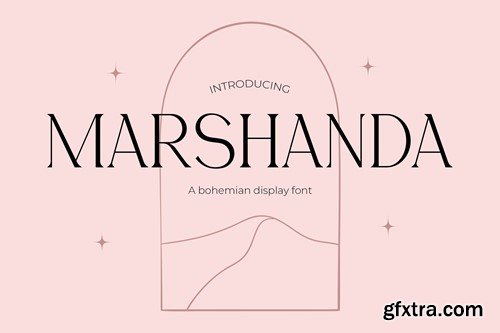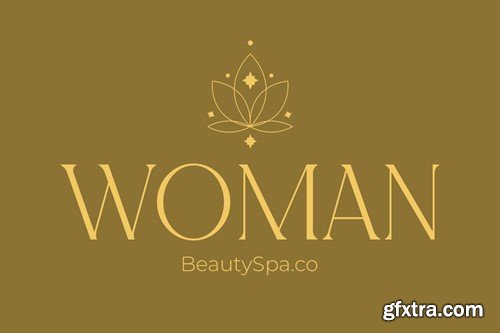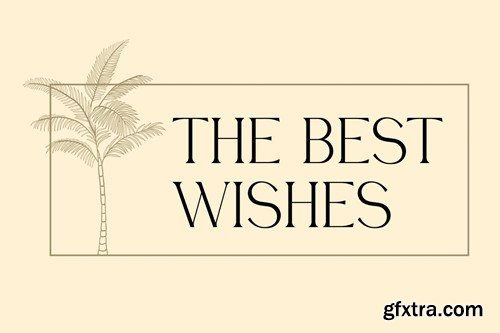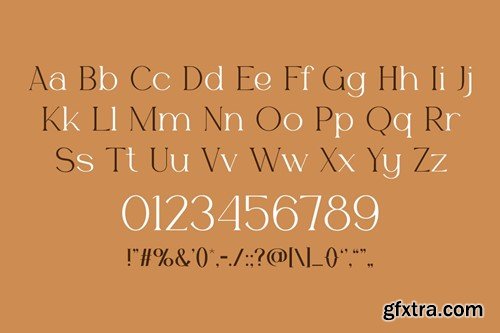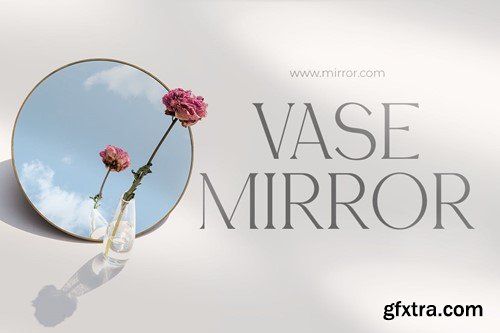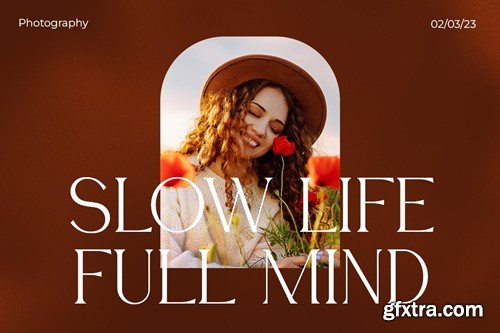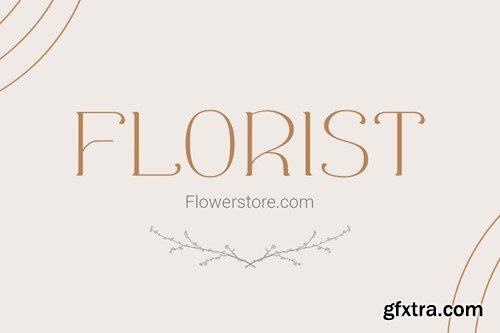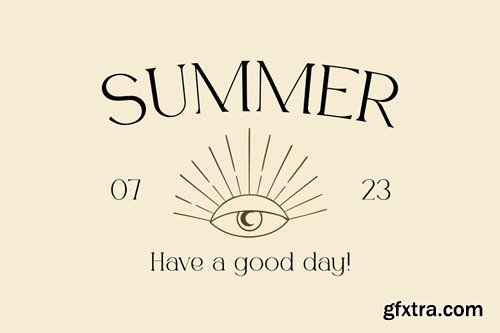
Marshanda - 精致衬线现代字体 JCWC324
Marshanda portrays timeless elegance and sophistication, crafted with exquisite serif strokes that emanate refinement. This font perfectly blends classic charm and modern aesthetics, offering a versatile appeal for various design needs. Whether used in fashion branding, sophisticated logos, compelling quotes, elegant invitations, captivating posters, warm greetings, stylish packaging, wedding quotes, striking covers, professional business cards, or beyond, Marshanda adds a touch of timeless allure to every project. Its refined serif style and innate elegance elevate the visual narrative, making it an ideal choice for designers seeking sophistication and versatility in their creations. With Marshanda, let your designs exude an air of grace and sophistication, amplifying the elegance in every piece.